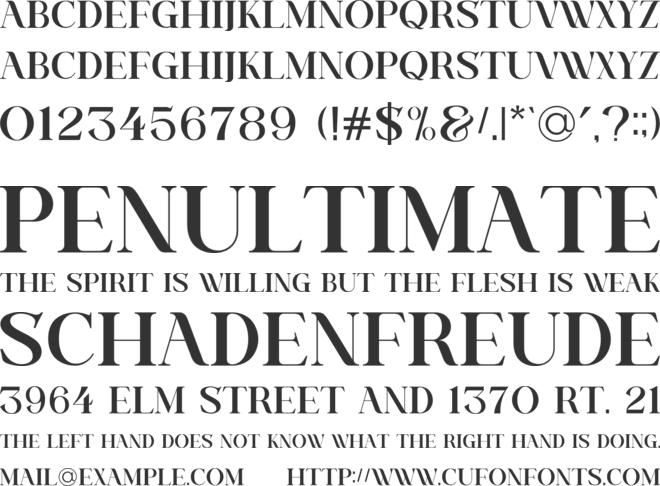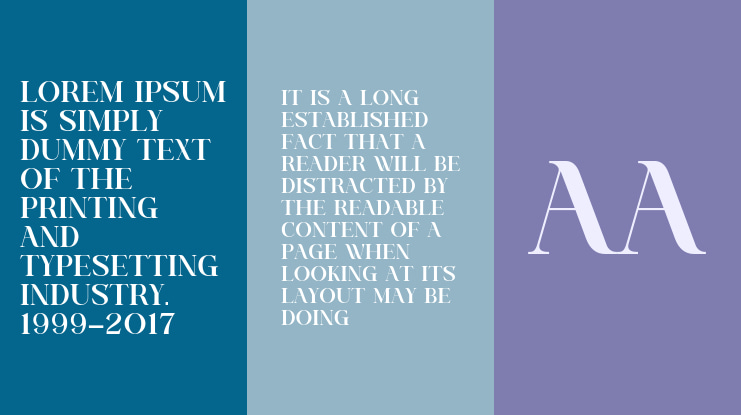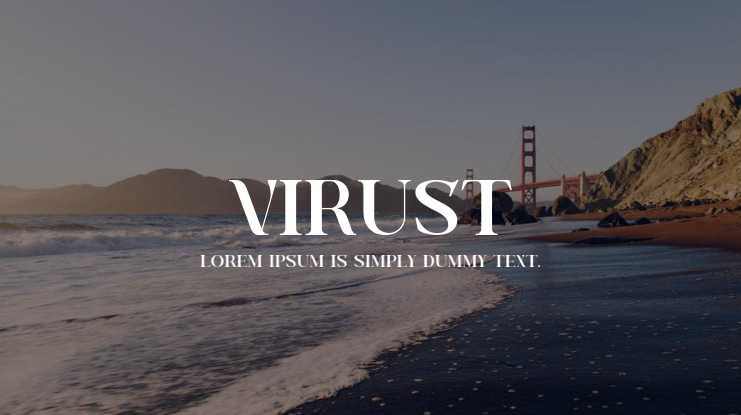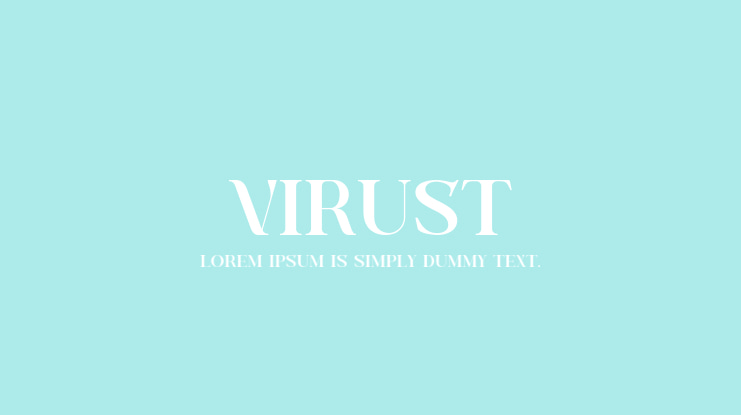
VIRUST Font
Saiful Fahri
VIRUST is an excellent typeface for your logo and brand identity. Virust is designed to be smooth and slightly thick to look tough and able to stand on its own, with lots of alternatives and ligatures.NOTE: This font is FOR PERSONAL USE ONLY!To purchase a commercial license, visit:https://crmrkt.com/GeP3yzFor inquiries and donations please send to;  donate even if only 1$ means you have helped me and my family, thank you very much.
VIRUST font preview